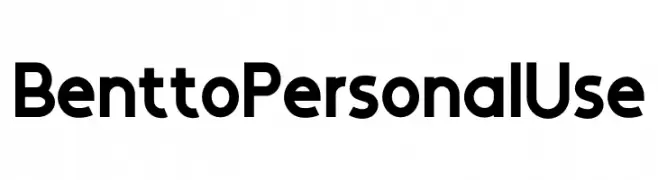
( Lukas Schiltknecht - www.getthepro.ch )
A modern sans-serif font with clean lines and a geometric touch.
( M#rm#n - Mar Man )
A bold, geometric font with a futuristic and industrial style.
( Manuel )
A playful and bold font with a unique blend of curves and sharp edges.
( Marcelo Rizzetto )
A playful and bold script font with smooth, rounded letterforms.
( Simon Schulte - www.simon-schulte.de )
A bold, hand-drawn font with dynamic and irregular strokes.
( Southype - Rodrigo Gonzalez - www.southype.com )
A bold, geometric font with a modern, industrial aesthetic.
( Woodcutter - woodcutter Manero - www.woodcutter.es )
A bold, graffiti-inspired font with blocky, angular characters and a rebellious urban style.
( Woodcutter - woodcutter Manero - www.woodcutter.es )
A playful, hand-drawn font with bold, irregular strokes and a whimsical style.
( Zetafonts - www.zetafonts.com )
A bold, geometric font with sharp lines and a modern aesthetic.
( Zetafonts - www.zetafonts.com )
A sleek, ultra-light typeface with geometric lines and minimal contrast.
( Zetafonts - www.zetafonts.com )
A modern, geometric typeface with smooth, rounded edges and consistent stroke width.
( imagex - www.imagex-fonts.com )
A bold, distressed font with a rugged, vintage appearance.
( imagex - www.imagex-fonts.com )
A bold, distressed font with a grunge texture and condensed width.
( imagex - www.imagex-fonts.com )
A bold, distressed font with a rugged, industrial style.
( memesbruh03 - Aaron D. Chand )
A pixelated, retro-style font with a blocky, digital appearance.
( weknow - Wino S Kadir - www.creativefabrica.com/designer/weknow/ )
A bold, geometric font with a futuristic and industrial aesthetic.
( Bastien Sozoo - sozoo.fr/ )
A bold, cursive script font with a playful and sophisticated style.
( Chris Vile - www.chrisvile.com )
A bold, distressed font with sharp, angular edges and a rugged aesthetic.
( Dingbat Crazy - dingbatcrazy.fateback.com/ )
A diverse set of decorative and plain frame glyphs.
( Dry Heaves - www.drybohnz.com/ )
A playful, handwritten font with bold, uneven strokes and a whimsical feel.
( Font Monkey - www.fontmonkey.com )
A playful, rounded font with smooth curves and uniform stroke width.
( Font Monkey - www.fontmonkey.com )
A playful, handwritten font with a friendly and casual style.
( Google - developer.android.com )
A geometric, angular script with uniform line thickness enclosed in square boxes.
( Julia Guinto )
A modern serif font with tall, narrow letterforms and subtle serifs.
( LadyTimeless - graphxgonewild.com/ )
A playful dingbat font with office-themed icons like push pins and notes.
( London's Letters - www.londonsletters.com/ )
A playful, school-themed decorative font with apple and book motifs.
( London's Letters - www.londonsletters.com/ )
A decorative font with characters embedded in floral designs.
( London's Letters - www.londonsletters.com/ )
A decorative font with floral embellishments and a blend of serif and modern styles.
( Rafael Dinner - alum.mit.edu/www/rdinner/fonts.html )
A bold, textured font with a dynamic, decorative style.
( RicherlyBrunoMariana )
A modern, high-contrast font with a unique cut-out style.
A bold, cursive font with a flowing, handwritten style.
A futuristic, geometric font with blocky, angular letterforms.
A bold, geometric font with angular shapes and a modern, edgy style.